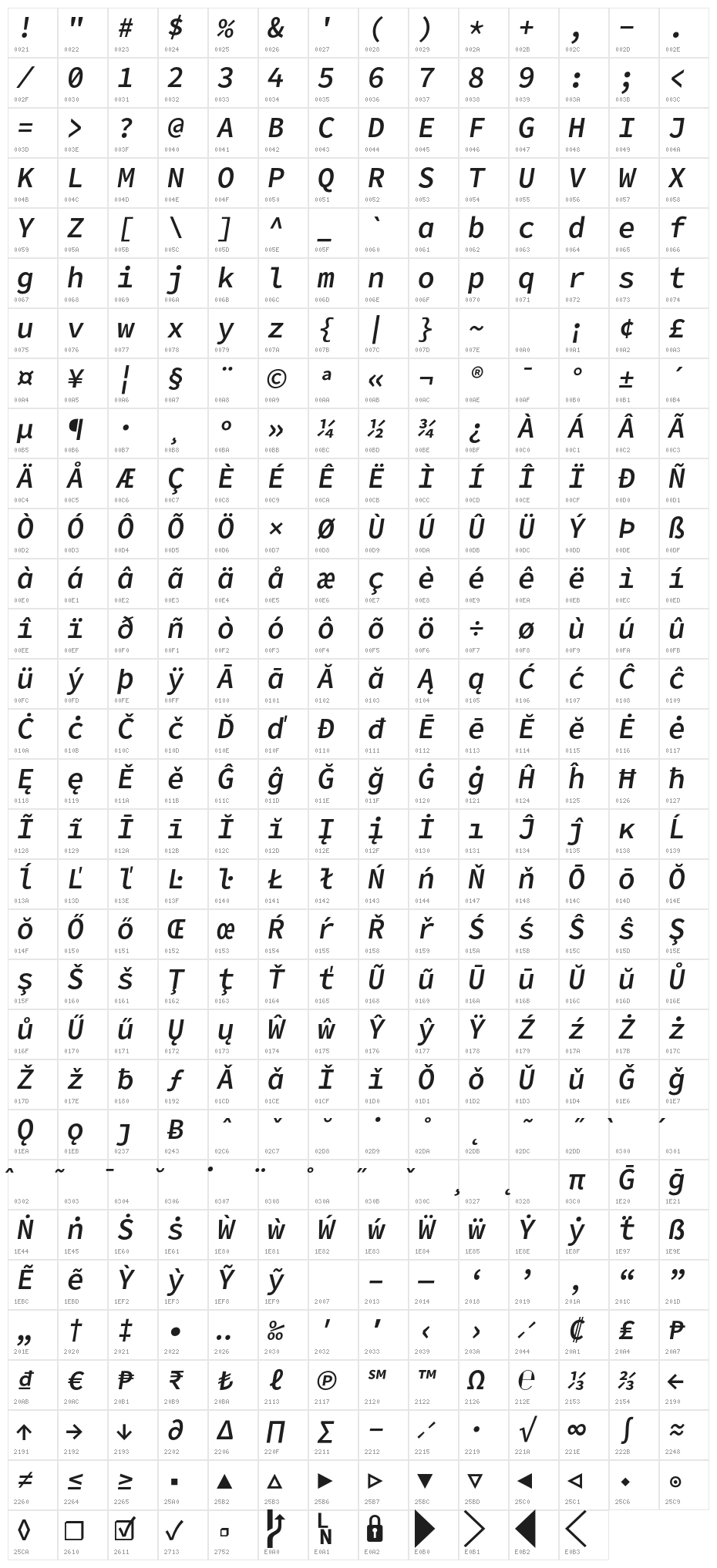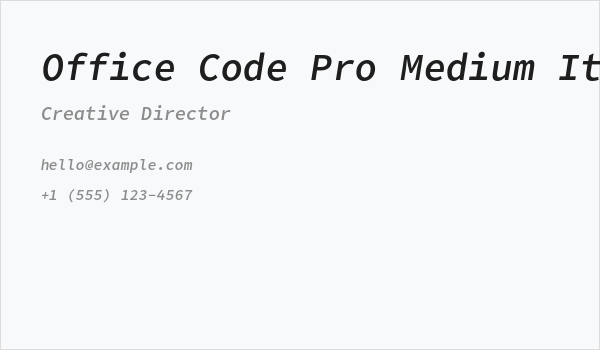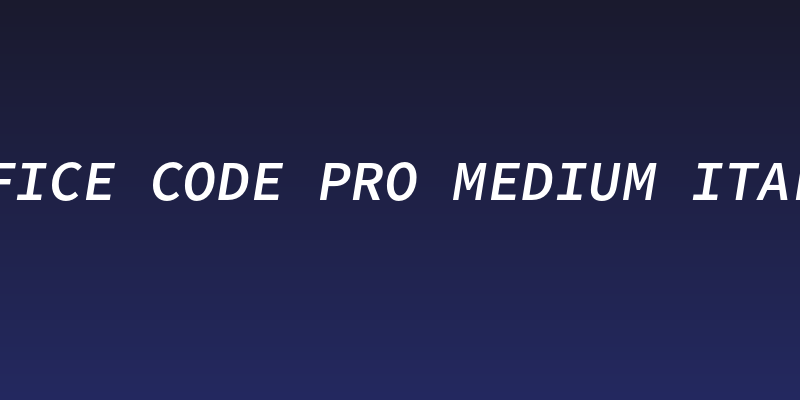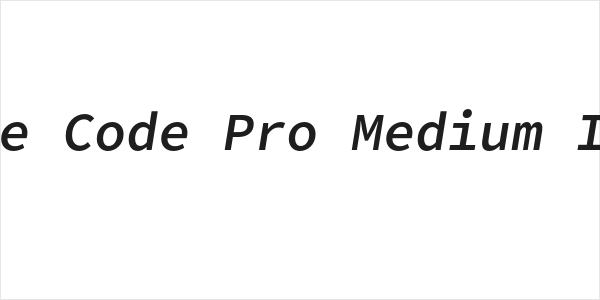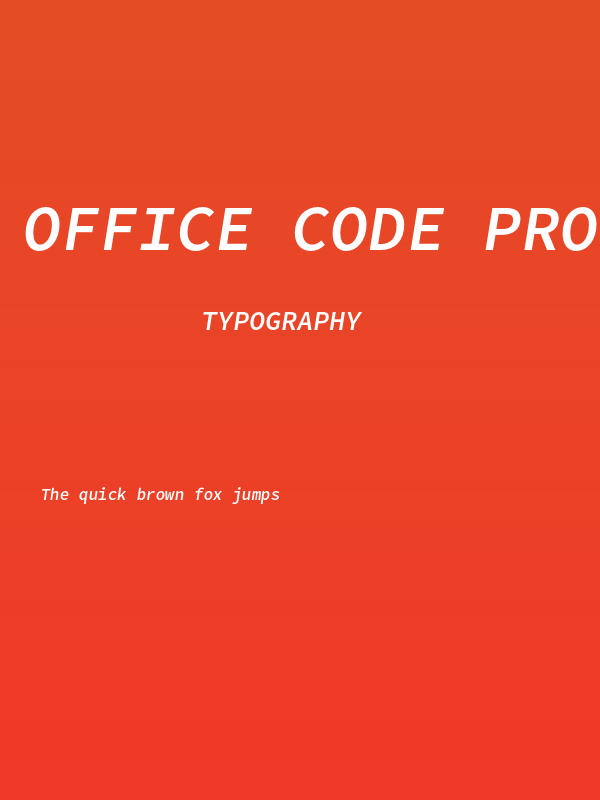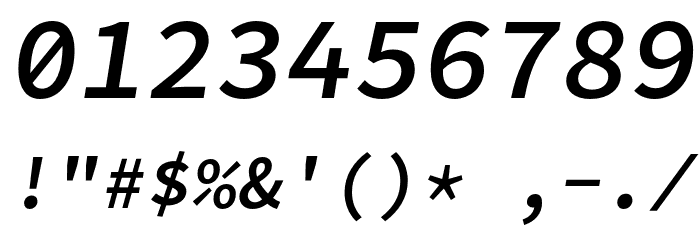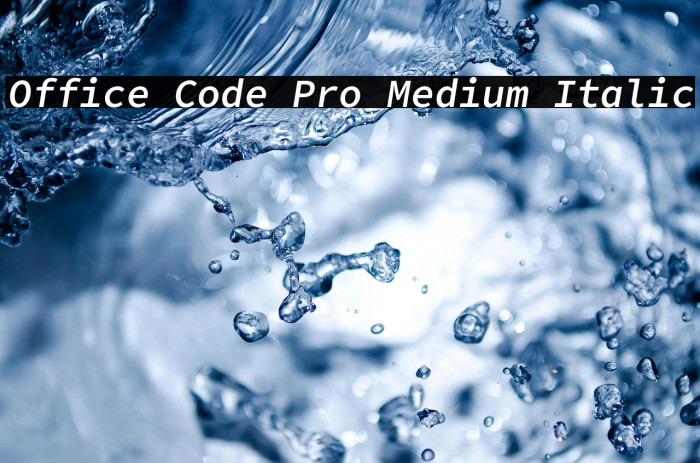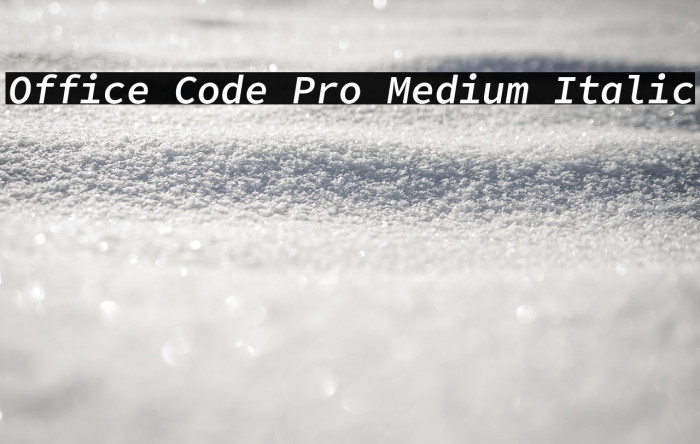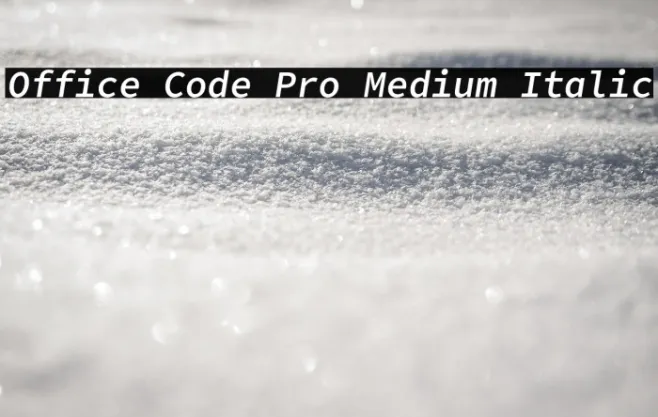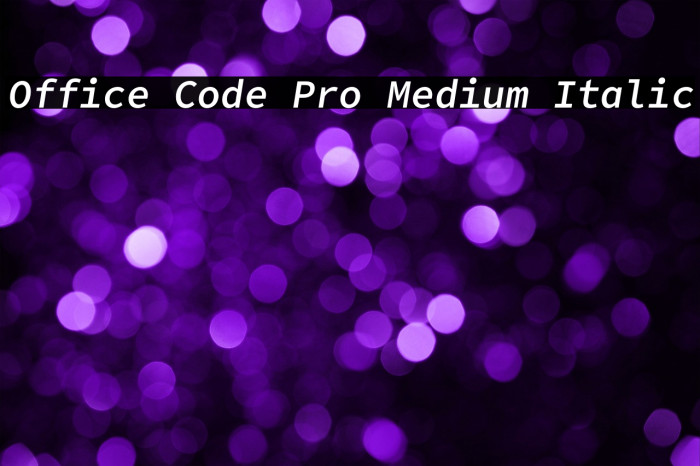
Office Code Pro Medium Italic Font
Office Code Pro Medium Italic Description
This typeface presents a clean and modern aesthetic with a slight slant, indicative of its italic style. The characters are well-proportioned with a consistent medium weight, offering a balanced appearance that is both professional and approachable. The sans-serif design ensures clarity and readability, making it suitable for various digital and print applications. The numerals are clear and distinct, while the special characters are easily recognizable, maintaining the font's overall coherence. The character spacing is normal, providing a comfortable reading experience without feeling cramped or overly spaced. The font's medium contrast in stroke thickness adds to its legibility without sacrificing style.
| Proposed Projects | Ideal for coding environments, technical documentation, user interfaces, and modern branding projects. |